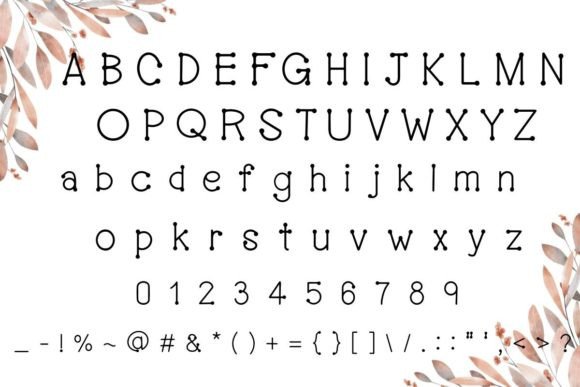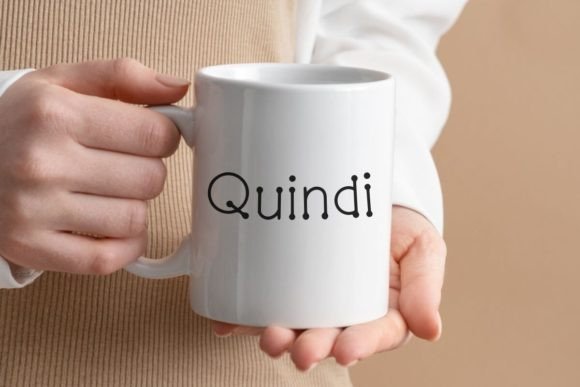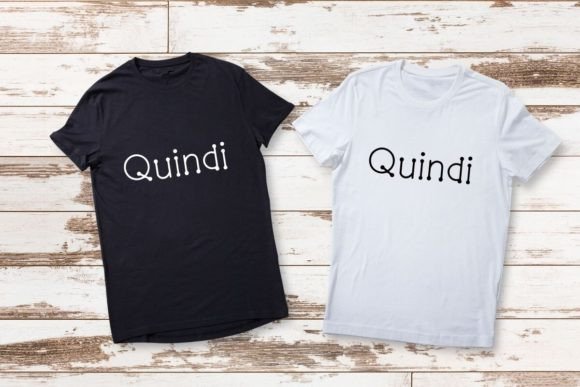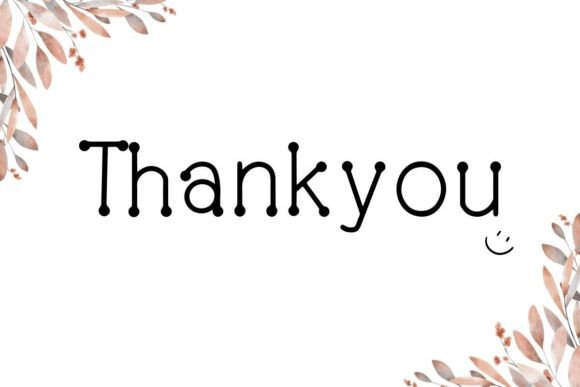
Introduction to Quindi Font
Have you ever stared at a blank page, waiting for the perfect idea to strike? That’s where Quindi Font comes in – the ultimate game-changer for your next creative project. With its unique, handwritten style, this font is sure to breathe life into even the most mundane designs.
As a designer, you know the importance of having the right tools at your fingertips. Quindi Font is more than just a design resource – it’s a key to unlocking your full creative potential. Whether you’re working on a project with a transparent background or need a high-quality font for a client, Quindi Font is the perfect addition to your toolkit.
Key Features of Quindi Font
- High-quality design resource suitable for various creative projects, including digital art and print materials.
- Features a transparent background, allowing for seamless integration into various design elements and backgrounds.
- Offers a unique, eye-catching design that can add a touch of elegance and sophistication to any creative project.
Honest Review: Quindi Font
One of the things that works well with the Quindi Font is its high quality and versatility. It’s perfect for any design project that requires a touch of elegance and sophistication. The transparent background option is also a great feature, allowing me to easily overlay the font on any image or background.
- ✨ High quality and versatile font suitable for various design projects
- ✨ Transparent background option for easy overlaying
However, I do have to mention a few limitations. The font selection is relatively limited, and I wish there were more options to choose from. Additionally, the font can be a bit too elegant for some projects, which may not be ideal for more casual designs.
- ⚠️ Limited font selection
- ⚠️ May be too elegant for casual designs
Overall, I’m really impressed with the Quindi Font. It’s a great design resource that I’ll definitely be using again in the future. Just be aware of the limitations, and you’ll be all set for a successful creative project.
Quindi Font Overview
The Quindi Font is a high-quality design resource ideal for various creative projects. It offers a transparent background and is available for free download. This versatile font is suitable for use in various digital design applications.
Tips for Getting the Most Out of Quindi Font
To get the most out of the Quindi Font, use it in combination with other design elements to create visually appealing and unique designs. Experiment with different font sizes and colors to add depth and emphasis to your work.
The Quindi Font is commonly used in creative projects such as graphic design, digital art, and typography. It is also suitable for use in business presentations, marketing materials, and social media graphics.
Alternatives to Quindi Font
Great Vibes is a beautiful, elegant script font perfect for creative projects that require a touch of sophistication. It’s ideal for titles, headings, and any design element where you want to convey a sense of luxury and refinement. Great Vibes is available for free download, making it an excellent choice for designers on a budget.
Compared to Quindi Font, Great Vibes has a more refined and polished look, making it suitable for high-end designs. While Quindi Font has a more playful and quirky feel, Great Vibes is ideal for projects that require a more sophisticated and elegant tone.